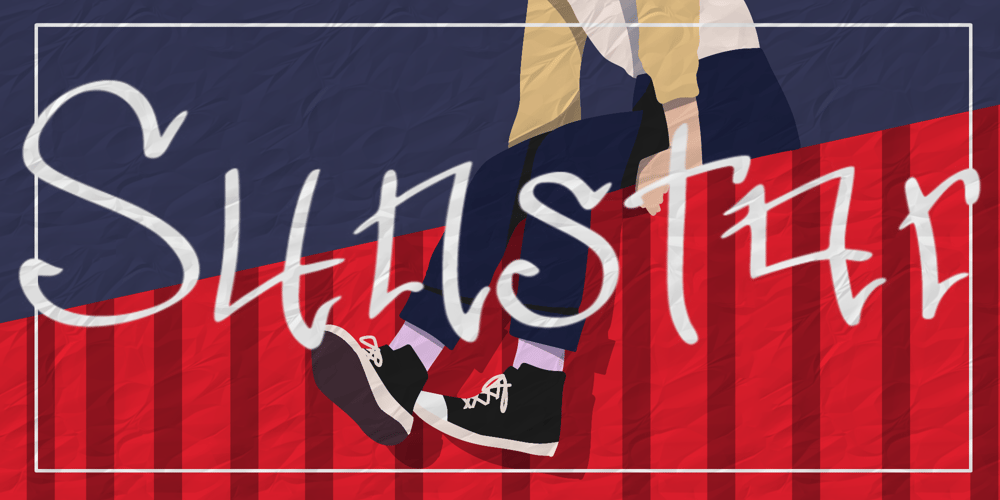
Sunstar Font Family was designed by Zaizafun Hanifah and published by Daily Studio. Sunstar contains 1 styles and family package options. Sunstar is a multi-purpose font designed by Daily Studio. This font has its unique style in every letter. Making your works look spectacular. Perfect for headlines, logos, posters, and branding. Contain full uppercase, lowercase, punctuation, and multilingual lettes.